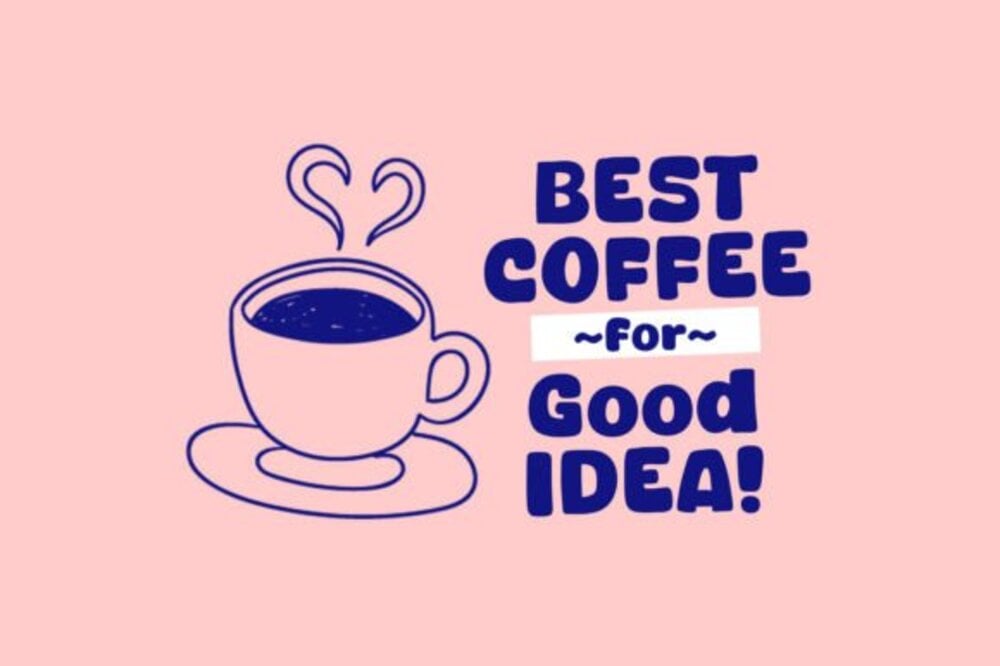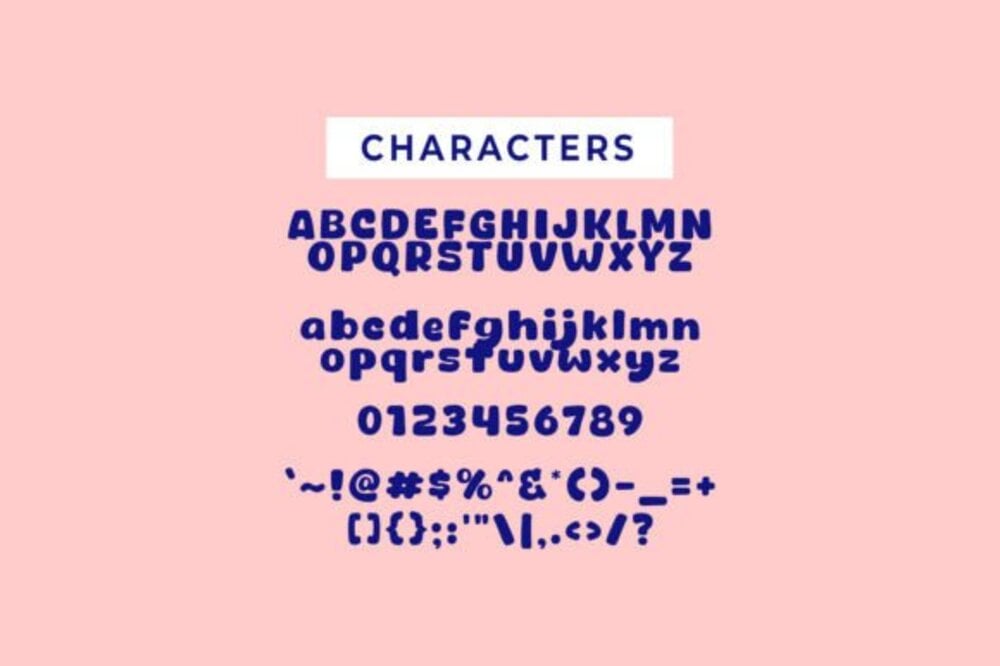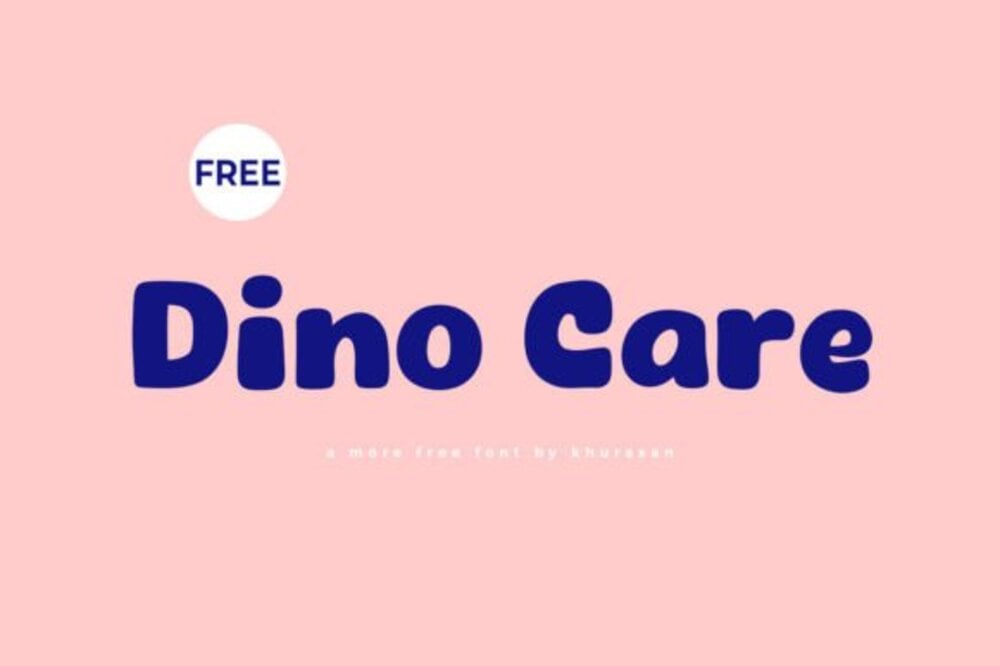
Dino Care Font
Dino Care is a playful, rounded display font bursting with youthful energy and charm. Featuring soft curves and whimsical details, it’s perfect for children’s designs, educational materials, or anything needing a touch of fun. Dino Care’s approachable and cheerful vibe brings a sense of warmth and creativity, making it an ideal choice for playful branding, storybooks, and kid-friendly projects.